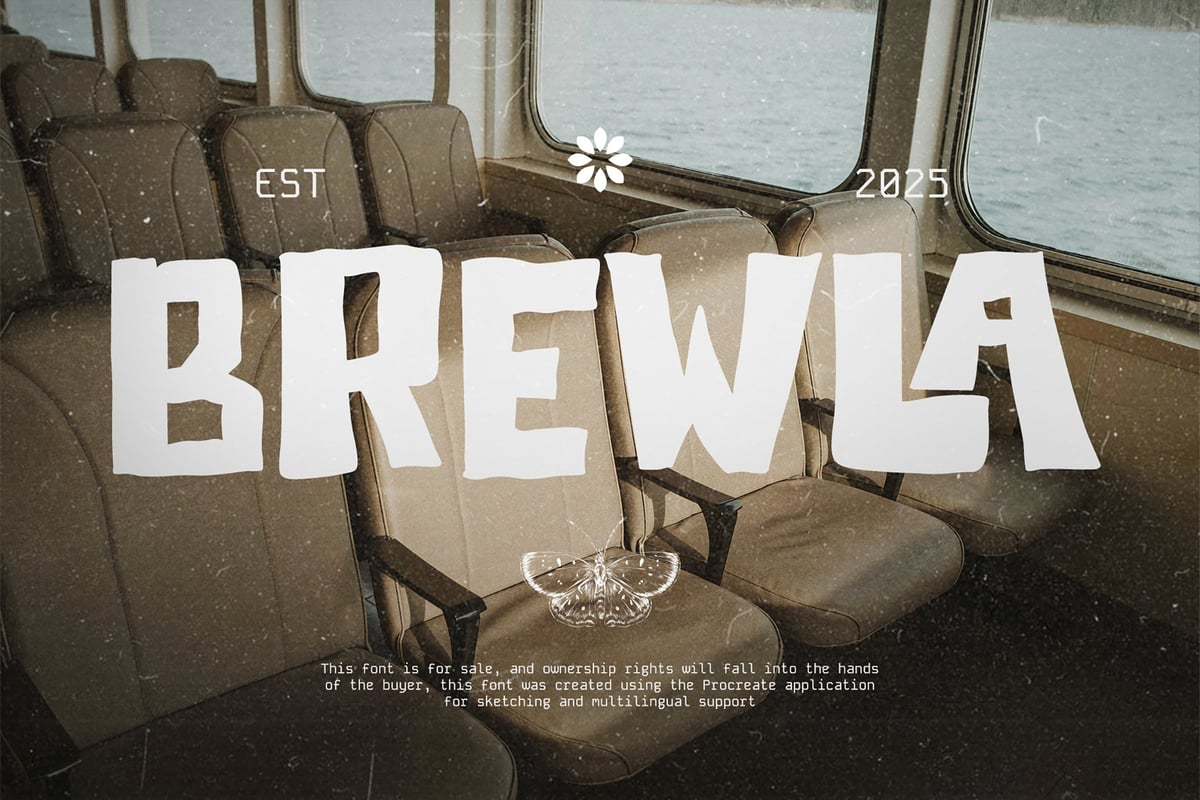
Brewla - Food Font
Brewla brings the warmth and character of your favorite coffee shop to life through bold, organic letterforms. This expressive display font captures the cozy essence of freshly brewed coffee with its characterful design and warm personality. Each letter radiates the inviting atmosphere that makes coffee culture so beloved. Perfect for cafe branding, menu boards, coffee packaging, event posters, and any creative project that needs a bold yet welcoming touch. The name "Brewla" combines "brew" with...